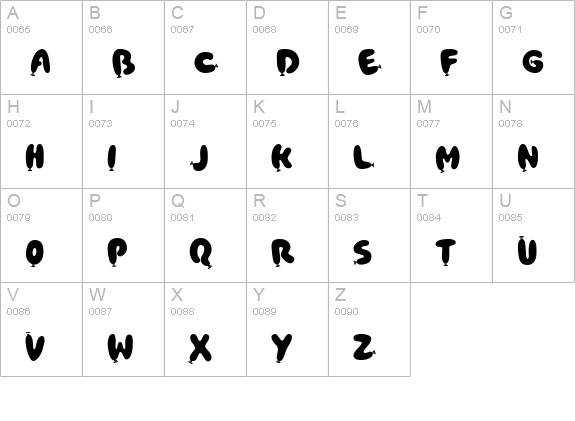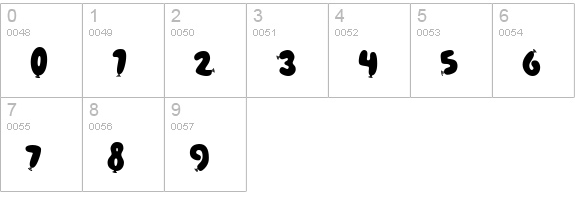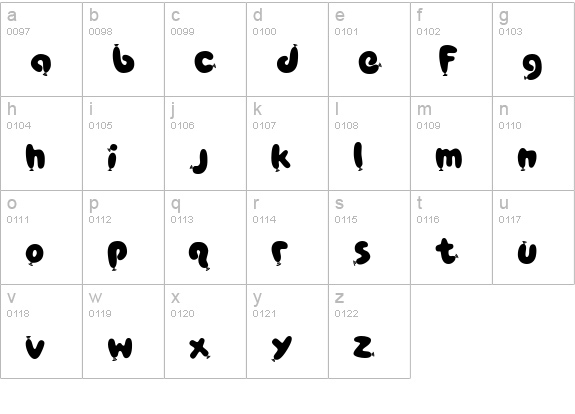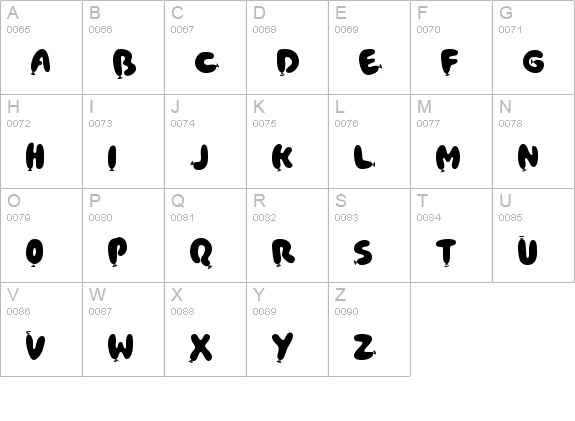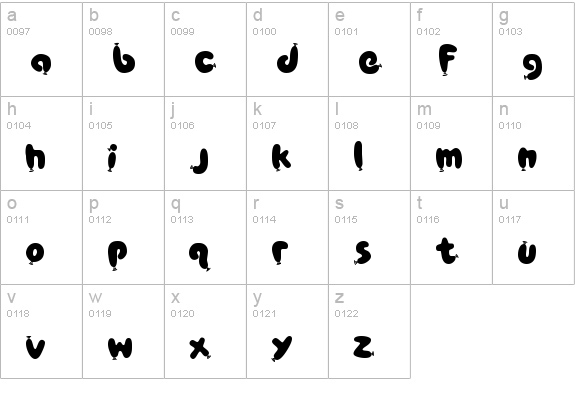
Poppy AOE Font Details
Poppy AOE is a charming and versatile font that exudes a playful yet elegant aesthetic. With its bold and flowing design, Poppy AOE is perfect for a wide range of creative projects, from branding to packaging to social media graphics. This unique font is sure to make your text stand out and capture the attention of your audience. The best part? Poppy AOE is completely free to download at FontsMarket.com. You can easily add this eye-catching font to your collection without any cost, making it a valuable asset for any designer or creative professional. Don't miss out on the opportunity to enhance your projects with the beauty and style of Poppy AOE – download it today and let your creativity shine!